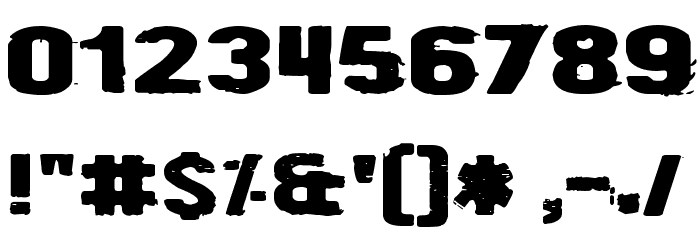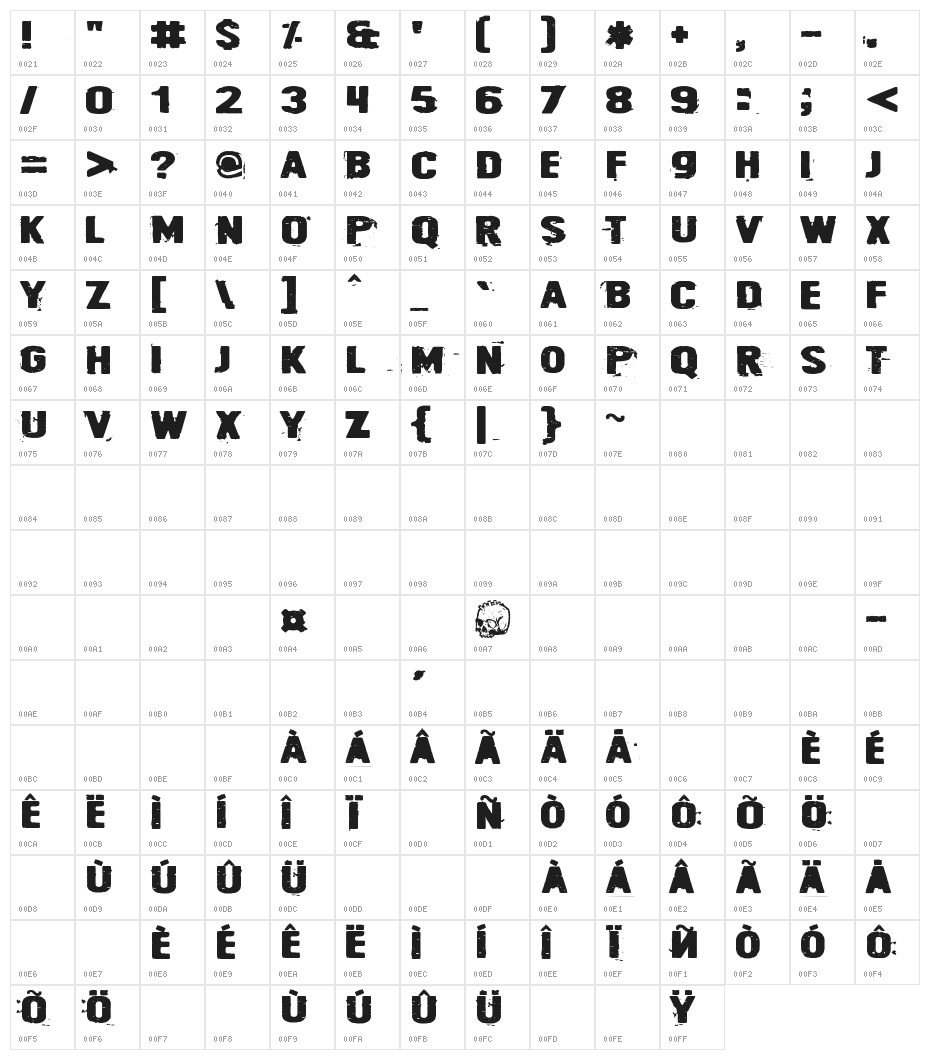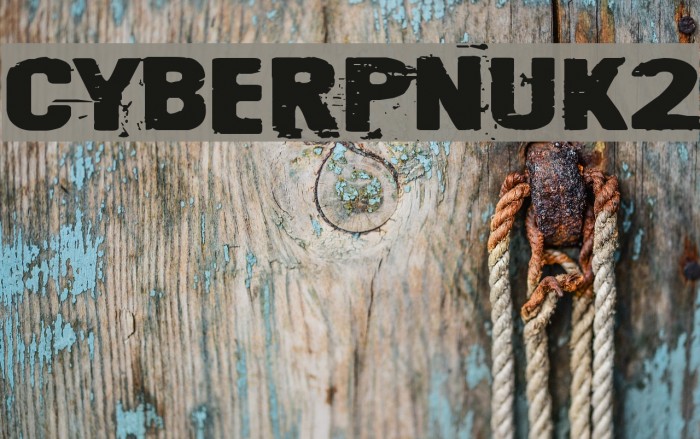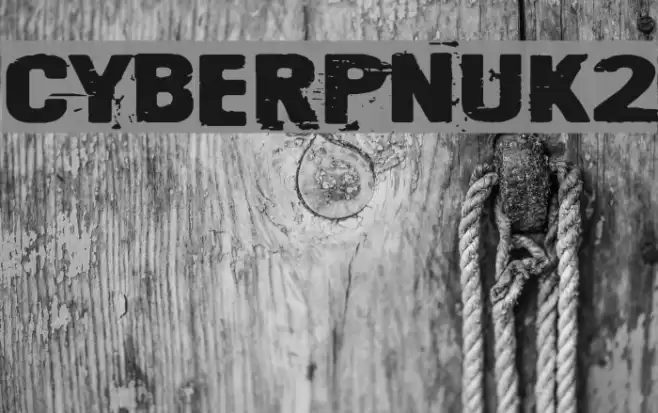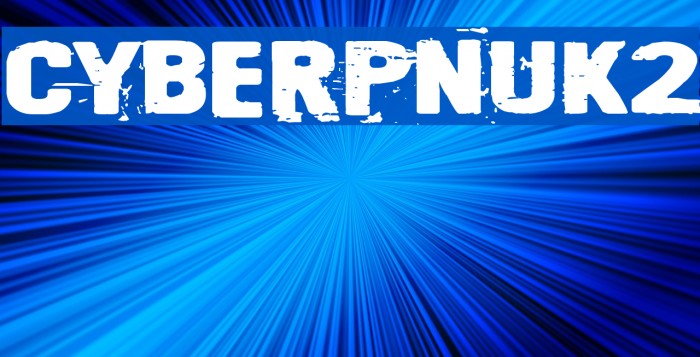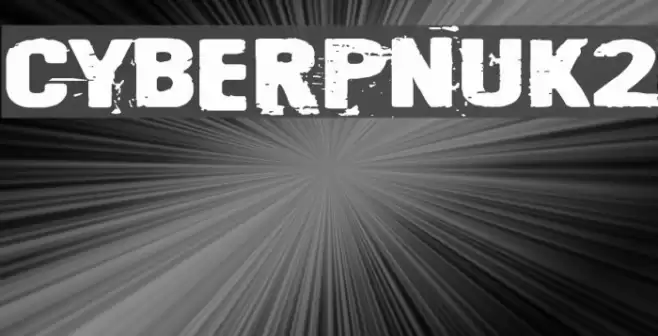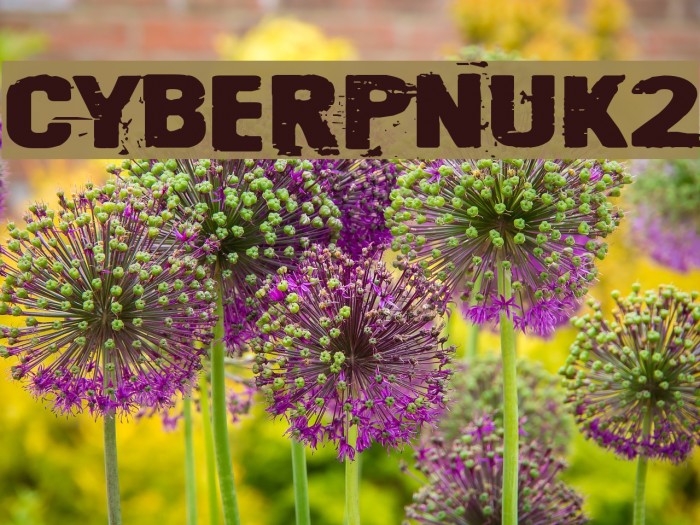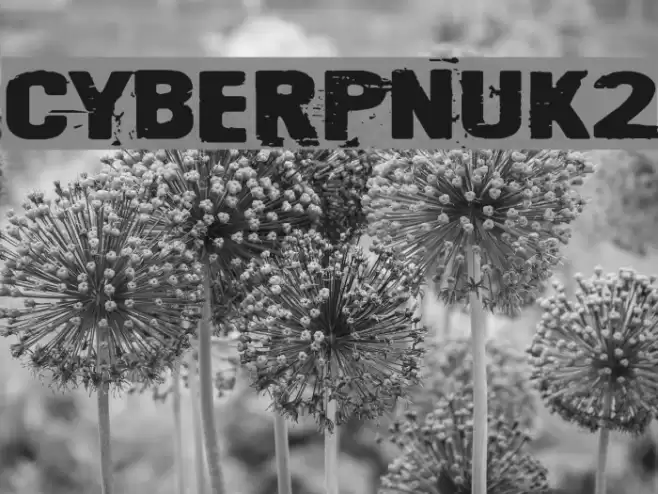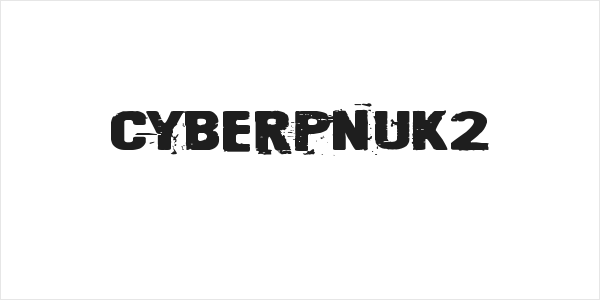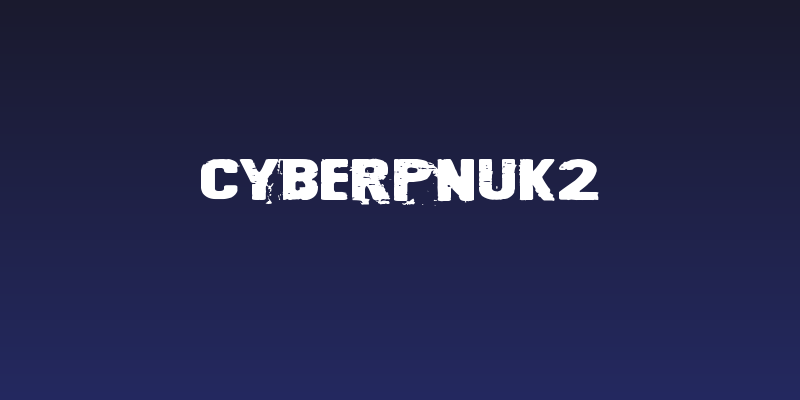
Cyberpnuk2 Font
Cyberpnuk2 Description
This font features a bold, distressed style with a rugged and worn appearance, reminiscent of urban decay or a post-apocalyptic theme. The characters are heavily textured, giving them a gritty, industrial look. The uppercase letters are prominent and impactful, while the lowercase letters maintain the same distressed aesthetic. Numbers and special characters follow suit, adding to the cohesive, raw feel of the typeface. This font is ideal for projects that require a strong, edgy, and unconventional look, such as posters, album covers, or video game titles.
| Proposed Projects | Posters, album covers, video game titles, urban-themed designs. |